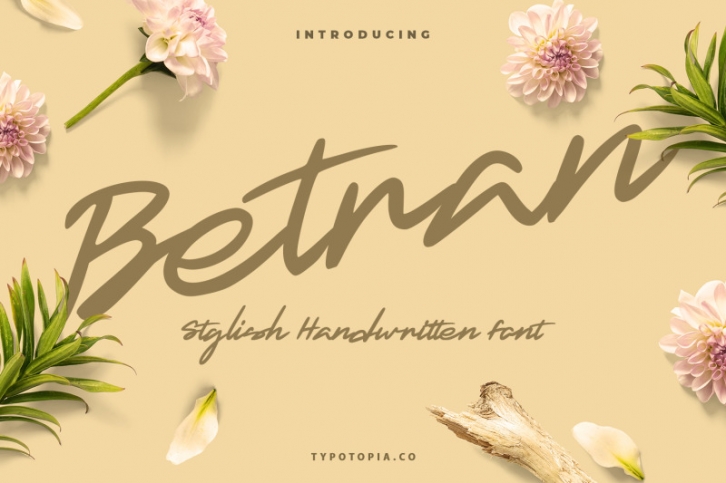
Introducing, Betran a Fancy & Unique Script Font
Betran a Fancy & Unique Script Font that is absolutely great for your next creative project such as logos, printed quotes, invitations, cards, product packaging, headers, Logotype, Letterhead, Poster, Apparel Design, Label, and etc.
This Versatile Font includes also support a Multilingual Characters. Making this Font a Swiss Army knife in your Font Library. It's extremely fun to use as each word can be transformed to your liking.
Uppercase & Lowercase letters
Numbering and Punctuations
Multilingual Support